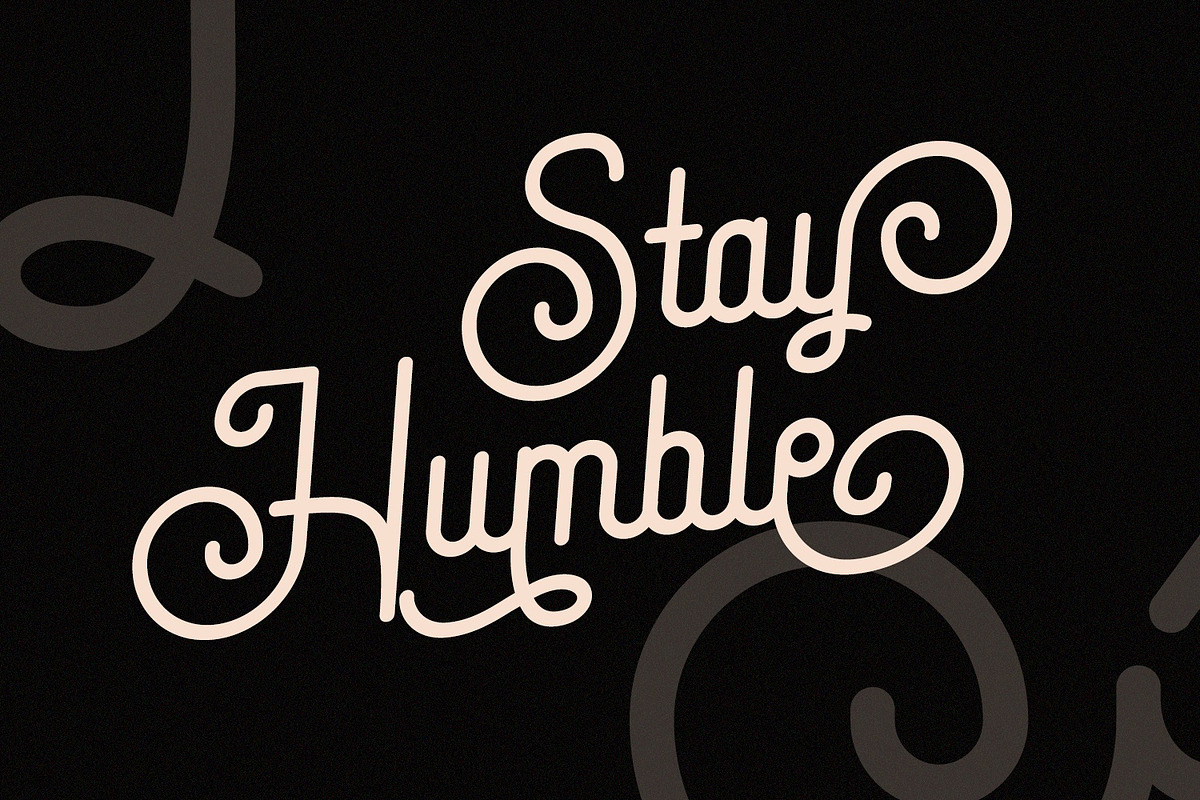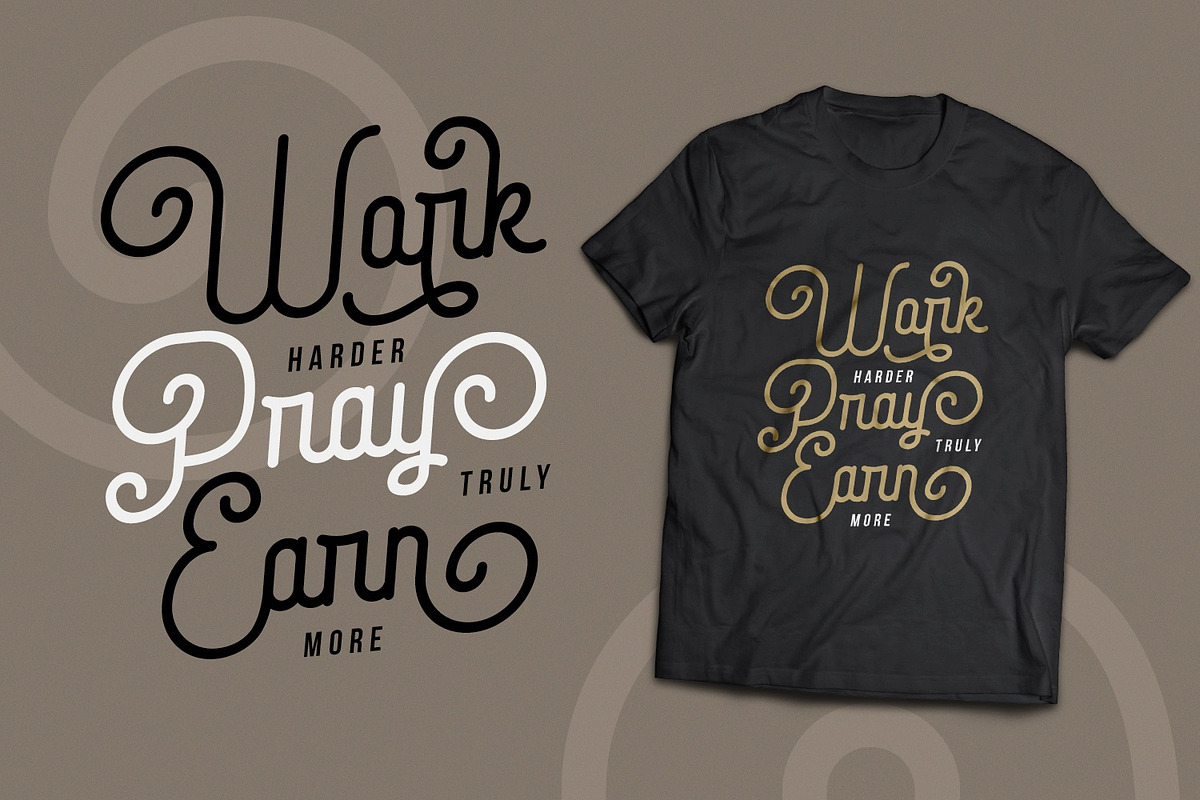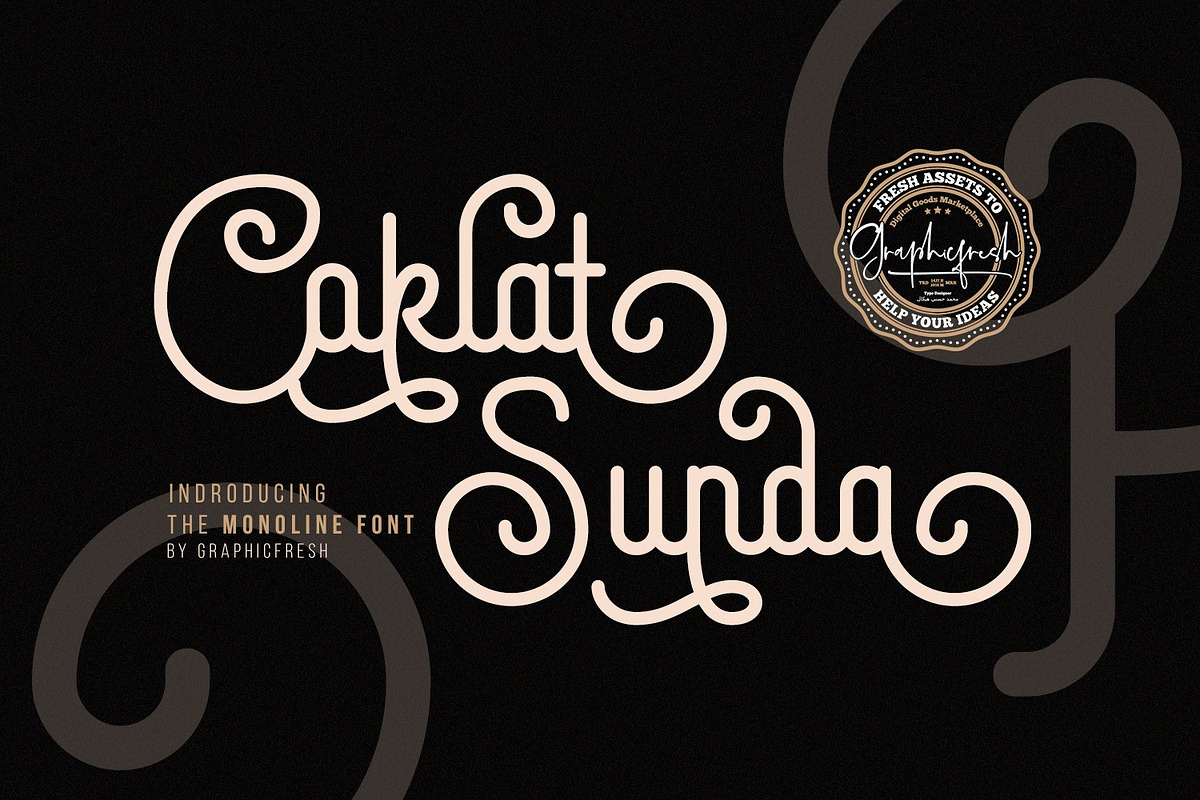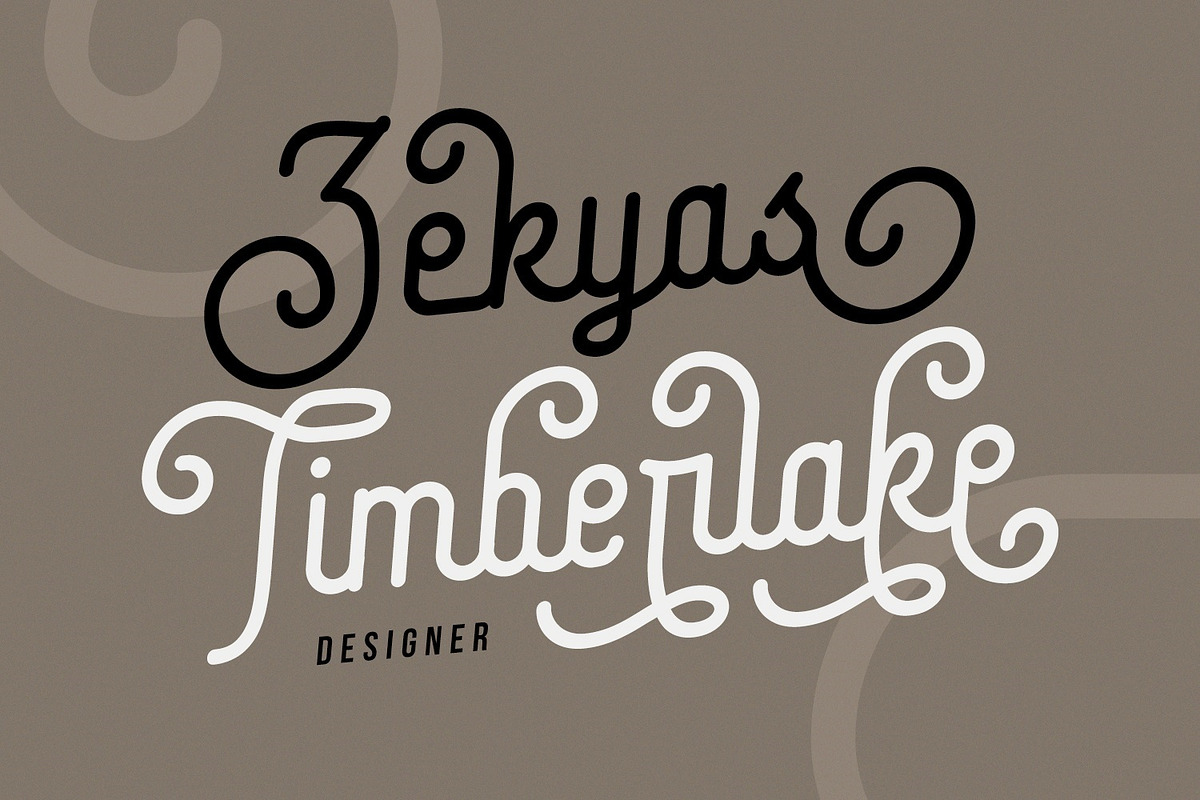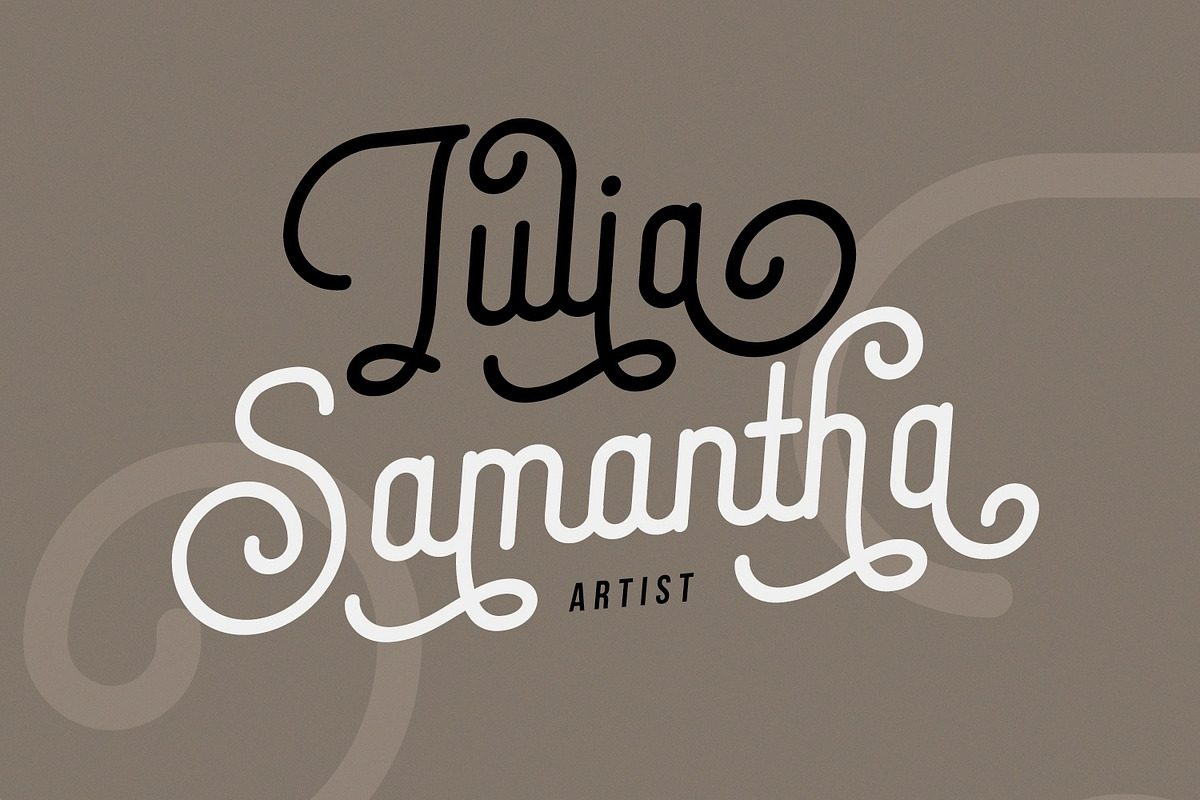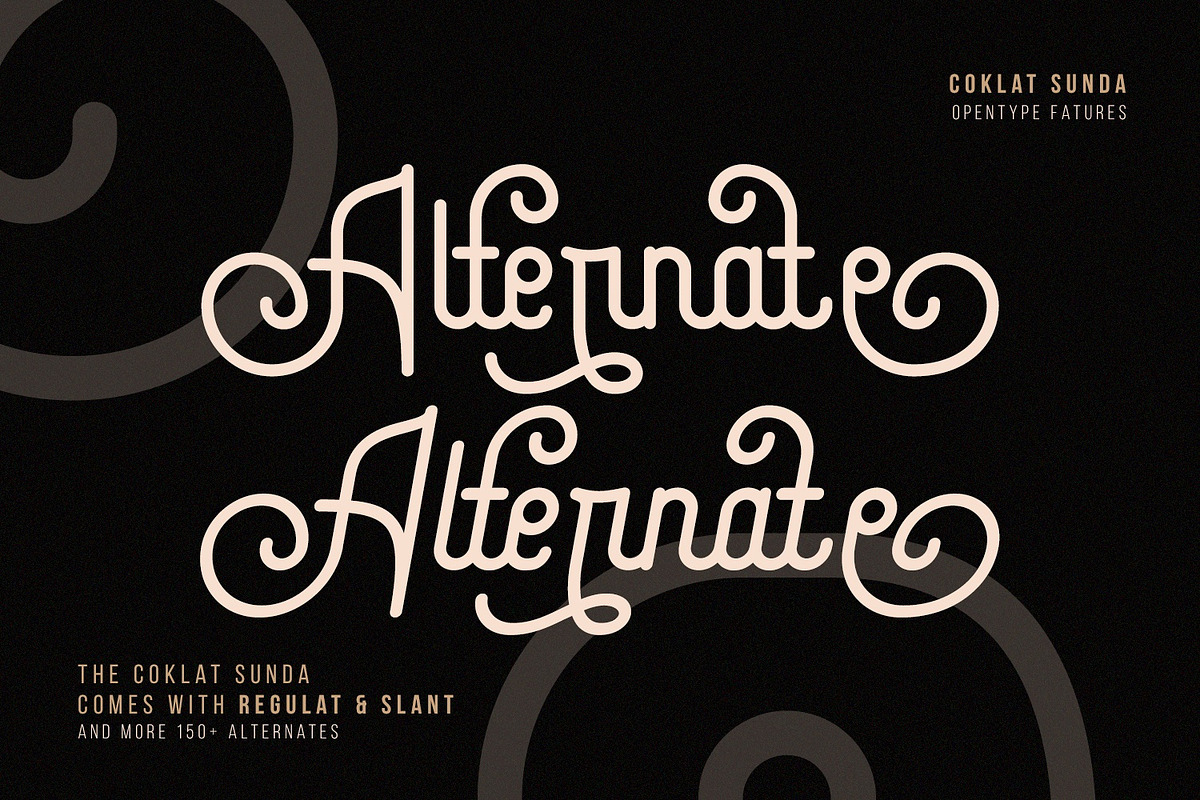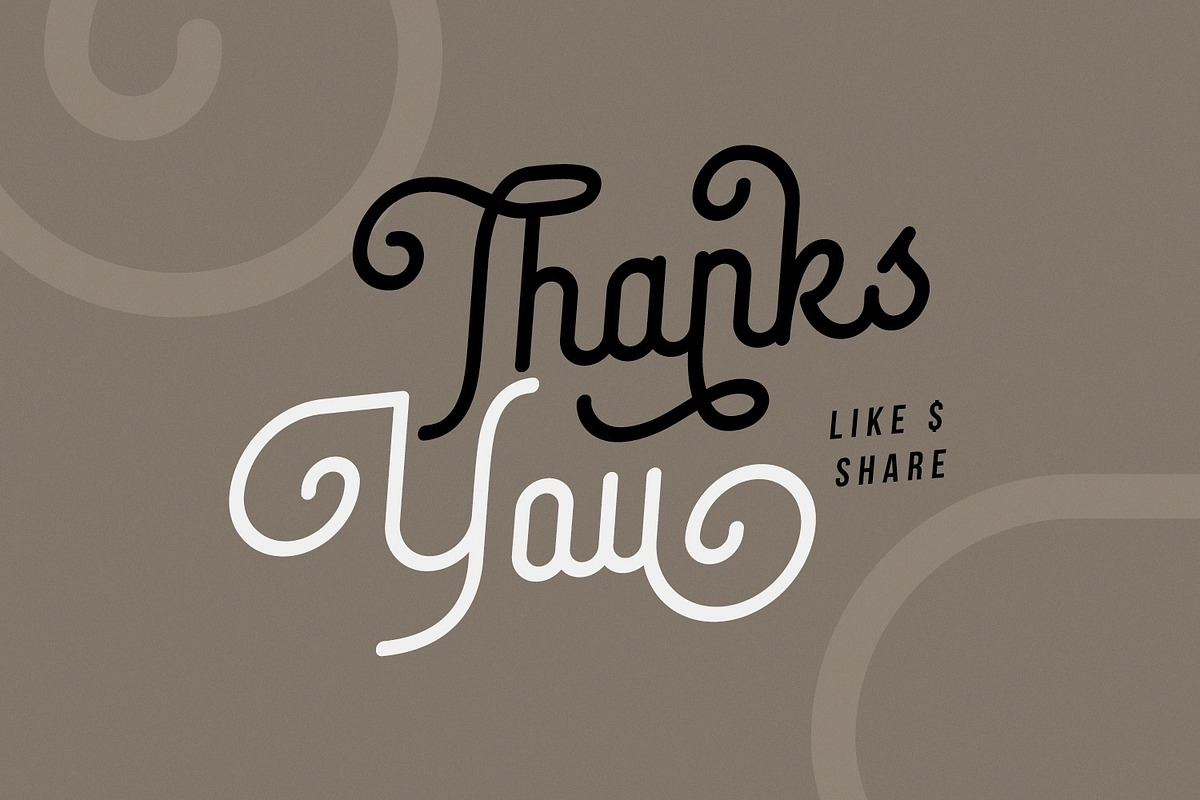
Coklat Sunda - The Monoline Font
Coklat Sunda is a monoline script family including Regular and Slant versions . it's perfect for logos, name card, magazine layouts, invitations, headers, or even large-scale artwork. Wolfer includes 2 OTF & TTF files within the Zip folder.
Lowercase and Uppercase
Coklat Sunda - The Monoline Font by Graphicfresh fits naturally into Branding, posters, packaging, typography.